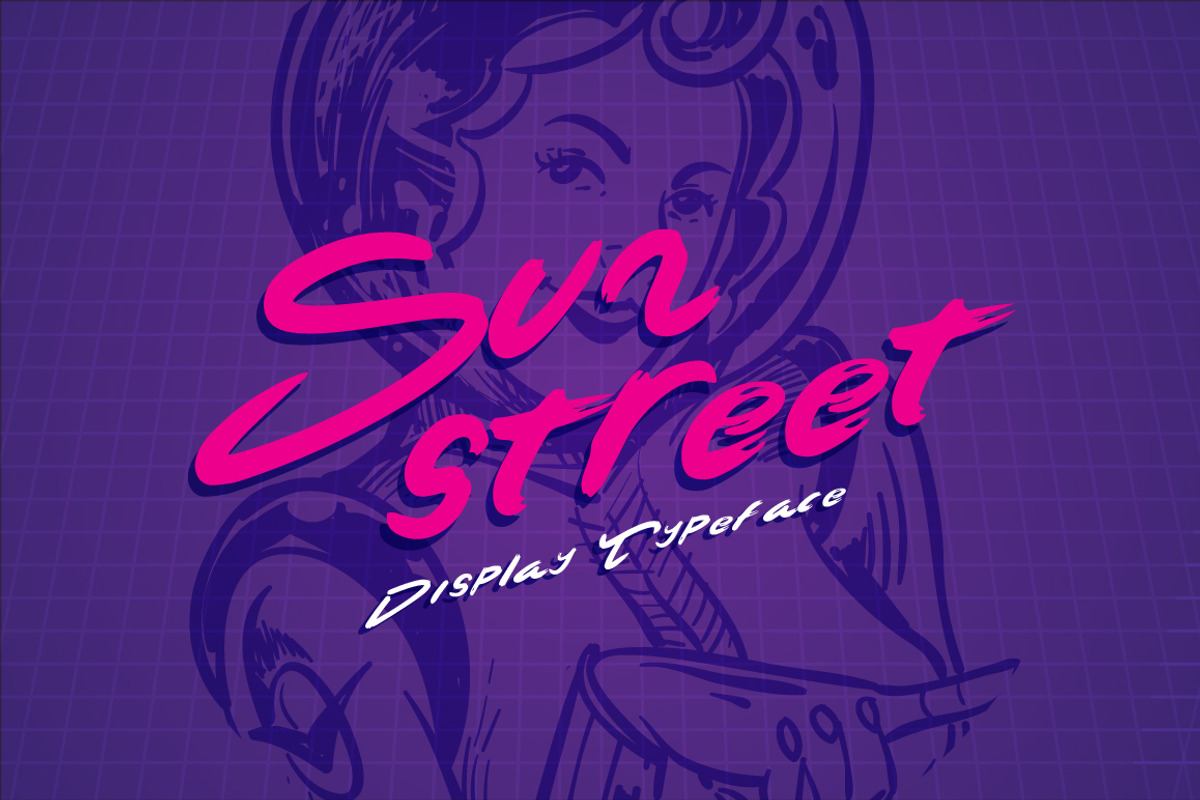
Sun Streets Font Free Download is a bold and playful display typeface that radiates fun, creativity, and modern flair. With its quirky letterforms and youthful energy, this font is perfect for eye-catching headlines, logo design, social media content, children’s projects, and anything that needs a lively, standout look.
Sun Streets combines clean lines with a handcrafted vibe, making it both stylish and approachable. Its personality shines in colorful branding, upbeat packaging, and creative digital layouts—perfect for designers who want to bring joy and movement to their work.
Light up your next project with the bright and bold charm of Sun Streets.